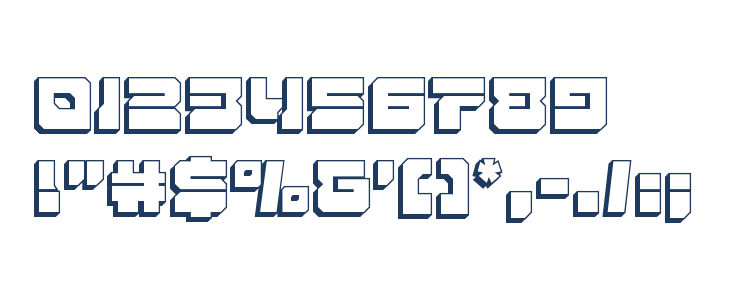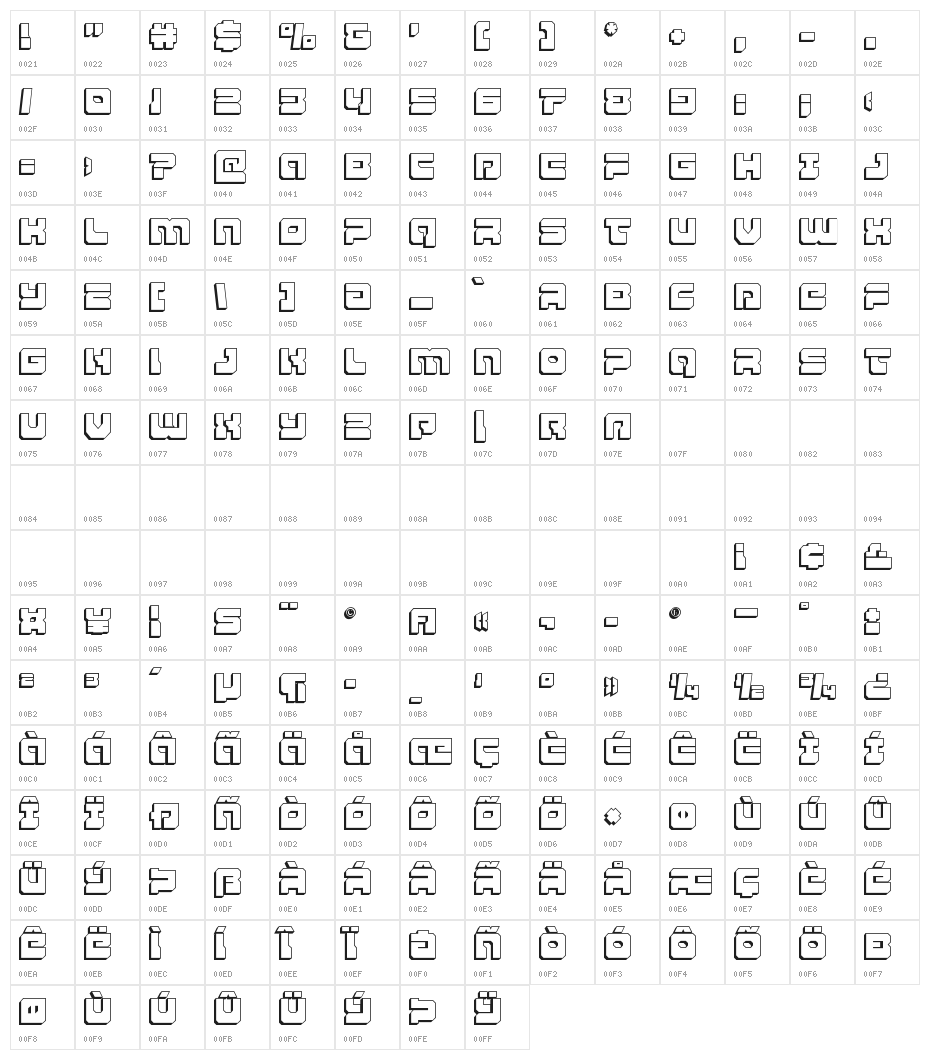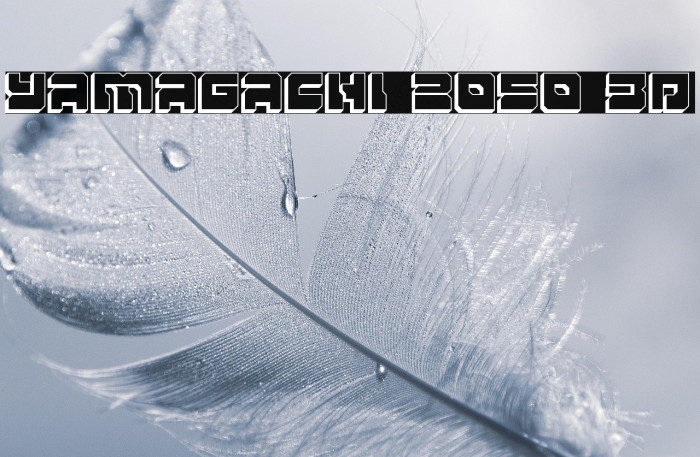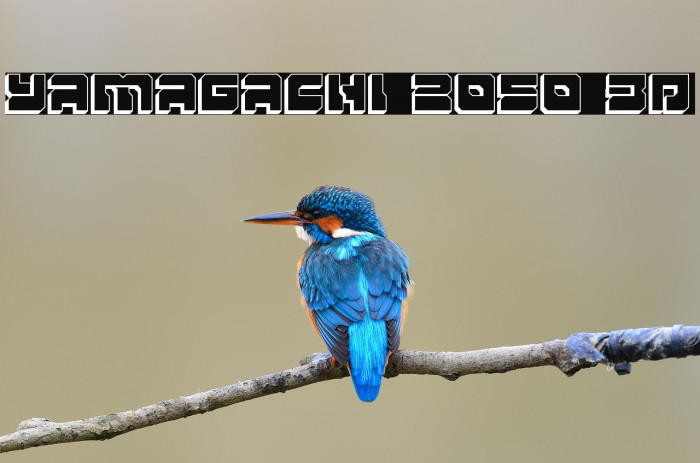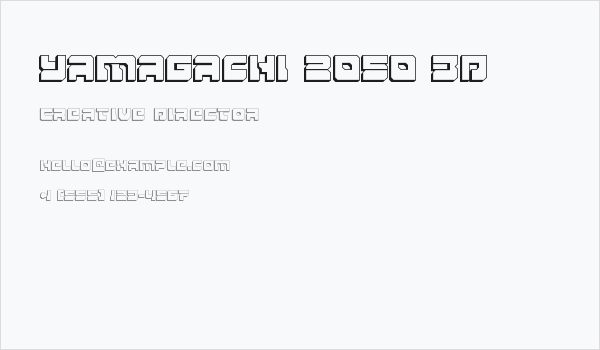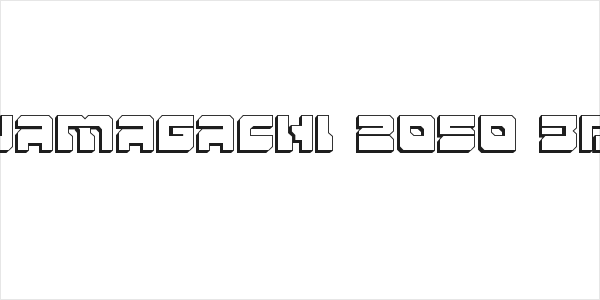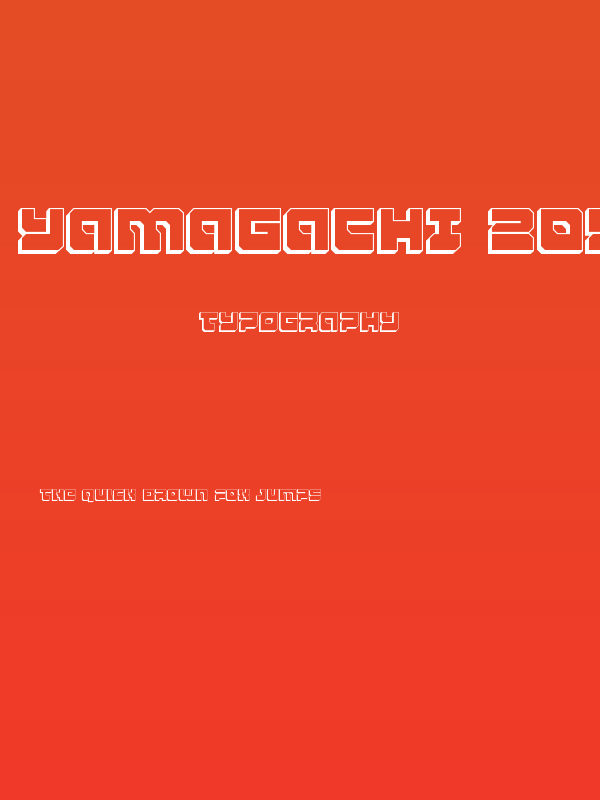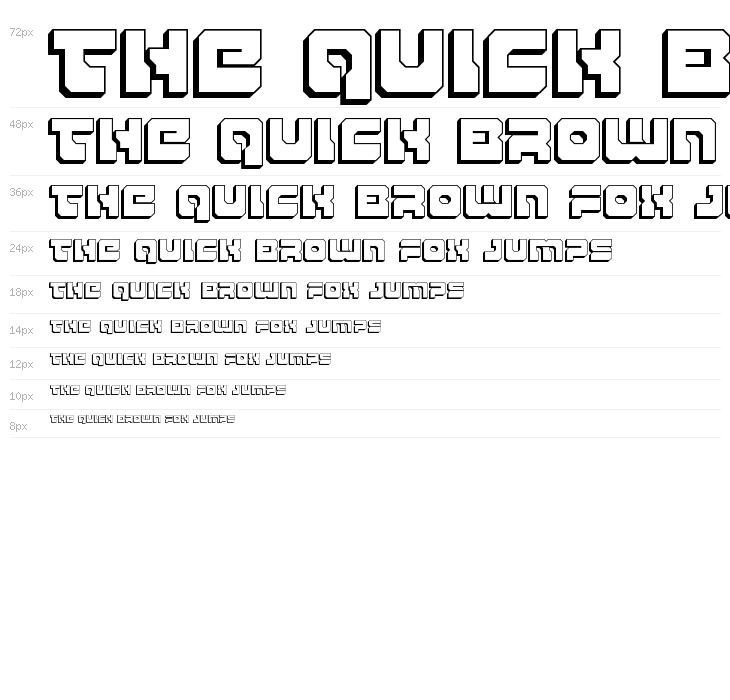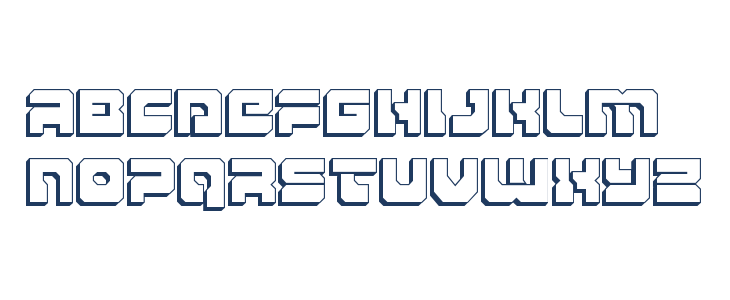
Yamagachi 2050 3D Font
Yamagachi 2050 3D Description
This font features a bold, futuristic design with a three-dimensional effect. The characters are outlined with a thick border, giving them a blocky, geometric appearance. The style is reminiscent of digital or sci-fi themes, with each letter and number having a distinct, angular shape. The uppercase and lowercase letters maintain a consistent style, with sharp edges and a uniform height. The numbers and special characters follow the same design principles, ensuring a cohesive look across all glyphs. This font is ideal for projects that require a modern, tech-inspired aesthetic.
| Proposed Projects | Ideal for video game titles, tech branding, sci-fi posters, and digital media. |